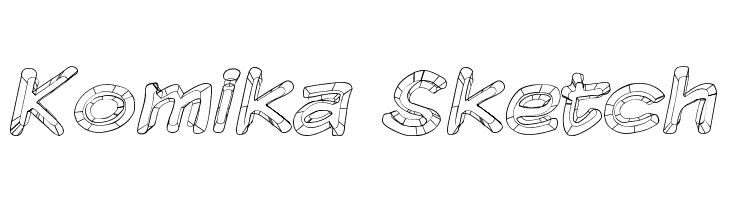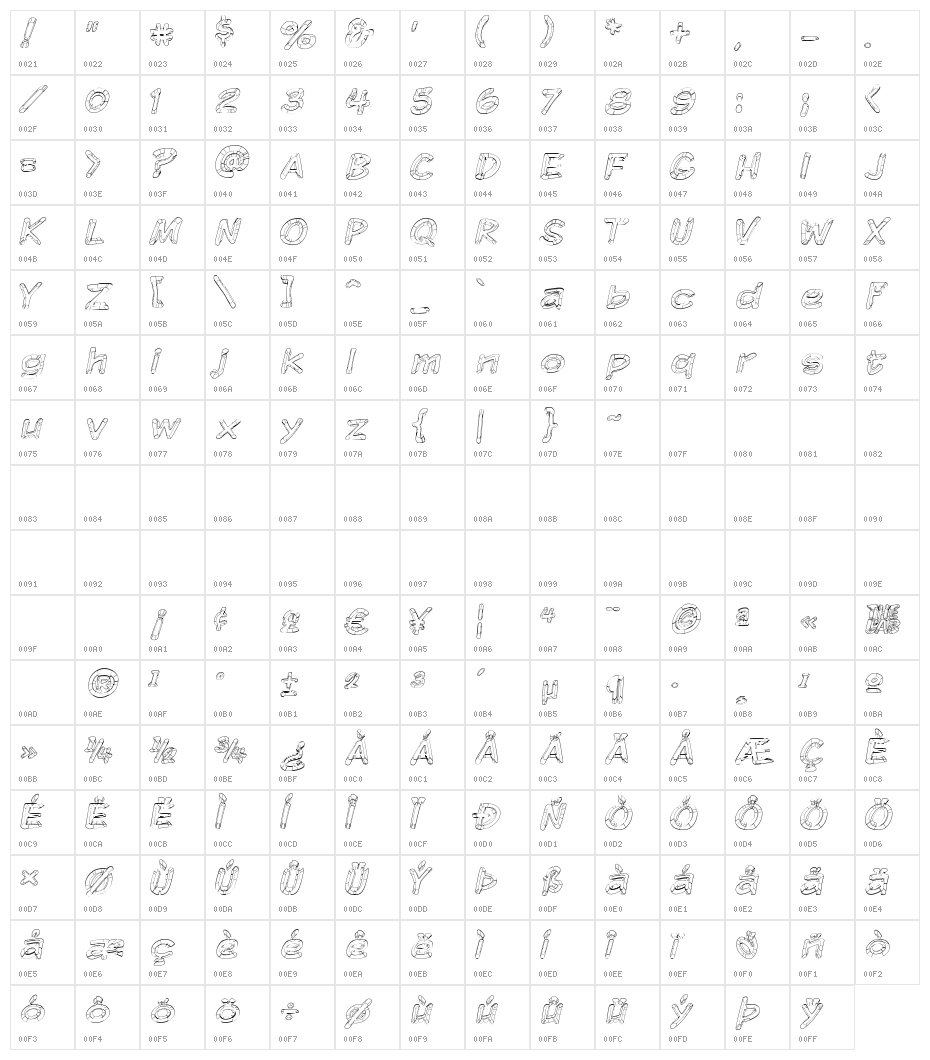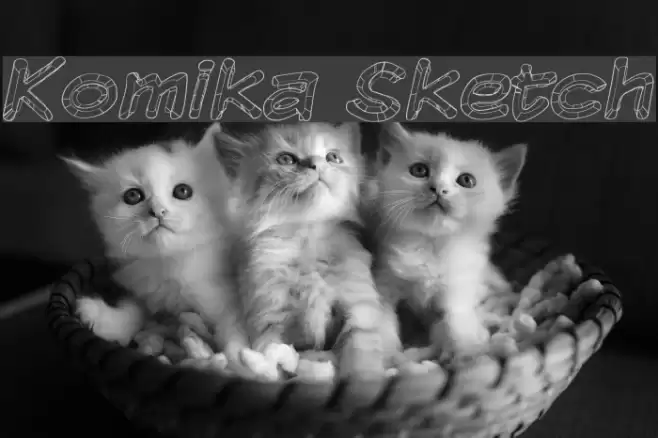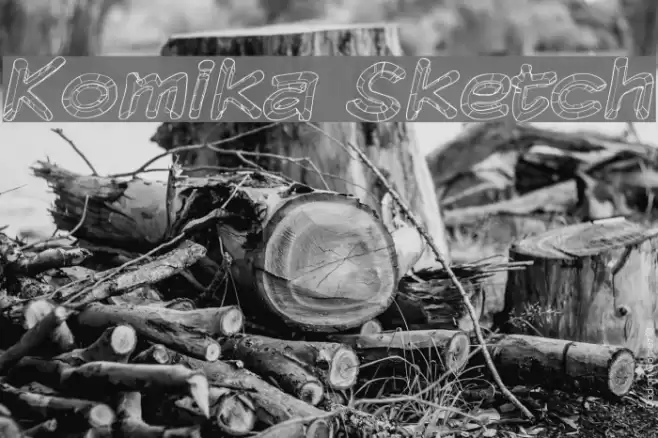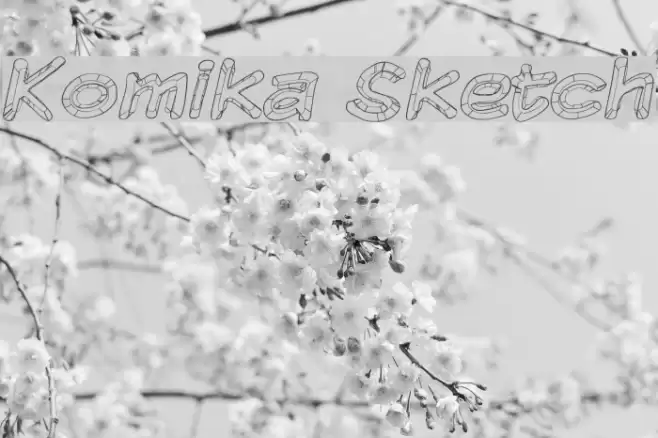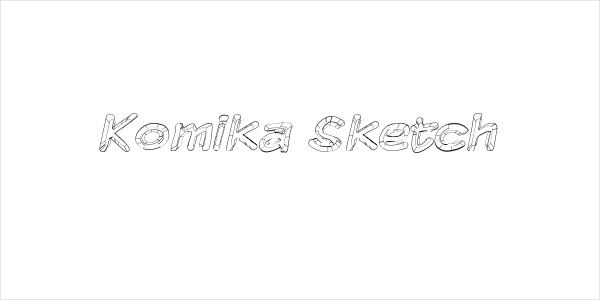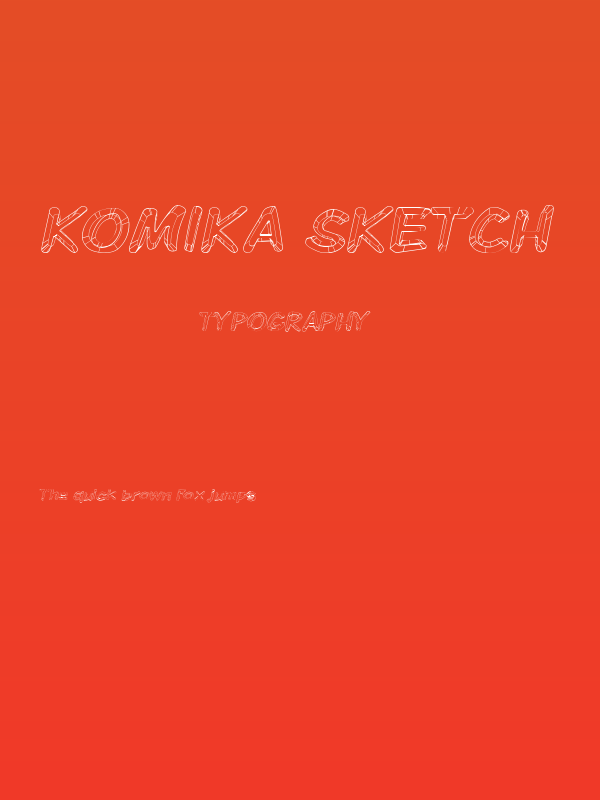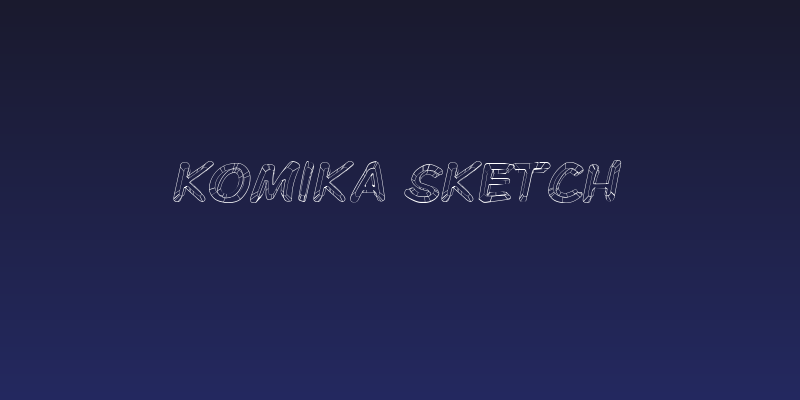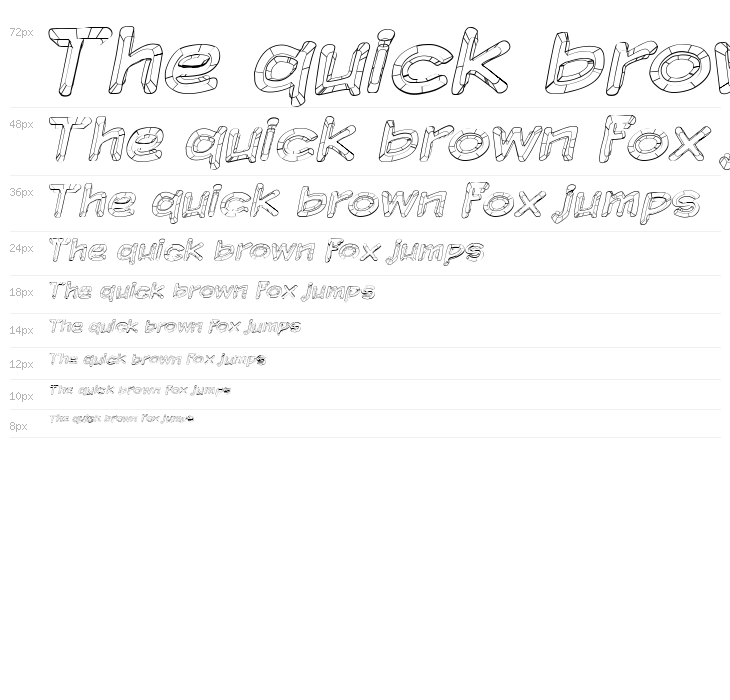
Komika Sketch Font
Komika Sketch Description
This playful and dynamic font features a hand-drawn, sketch-like appearance that adds a whimsical touch to any design. The letters are bold and rounded, with a three-dimensional effect created by the sketch lines that give them a textured look. The uppercase and lowercase letters maintain a consistent style, with the same sketchy outlines and playful curves. Numbers and special characters are equally stylized, ensuring a cohesive look across all text elements. This font is perfect for projects that require a fun, informal vibe, such as comic books, children's books, or playful branding.
| Proposed Projects | Ideal for comic books, children's books, playful branding, and informal design projects. |